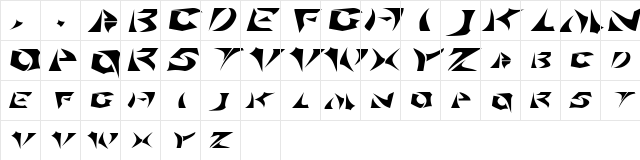
SabertoothExtended Regular
Design Context for SabertoothExtended Typeface
SabertoothExtended is a composed and adaptable typeface that performs quietly and consistently across a wide range of design contexts.